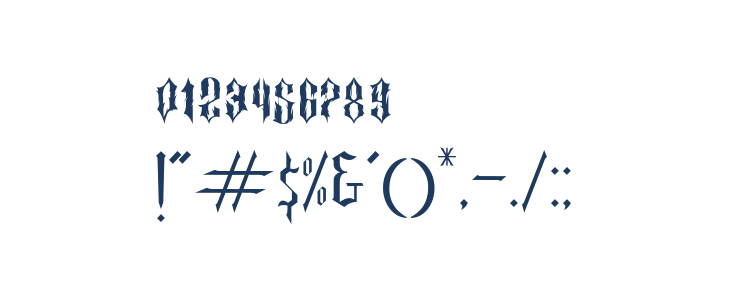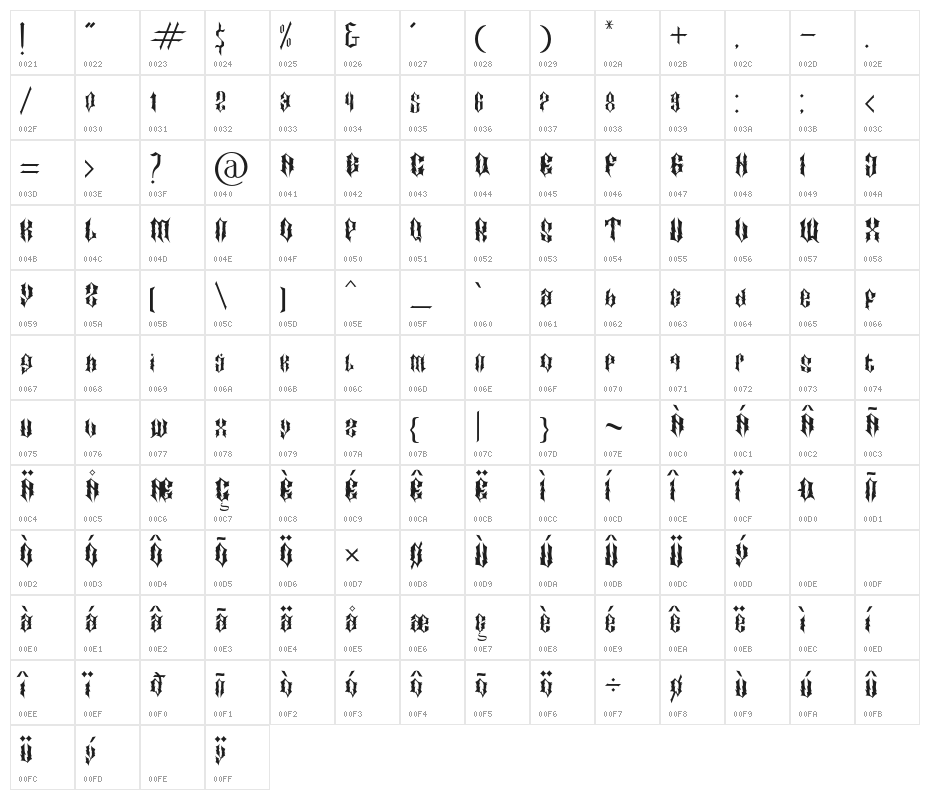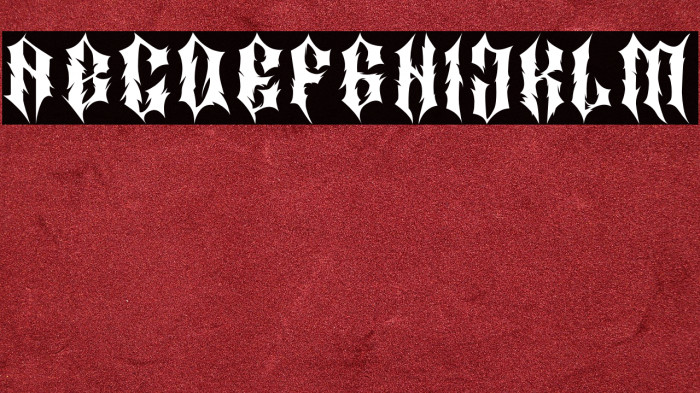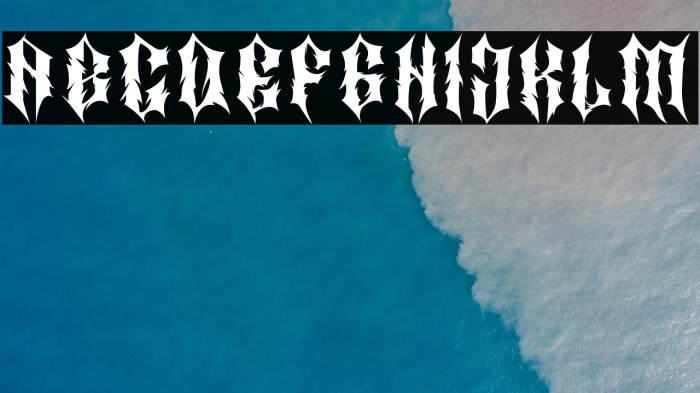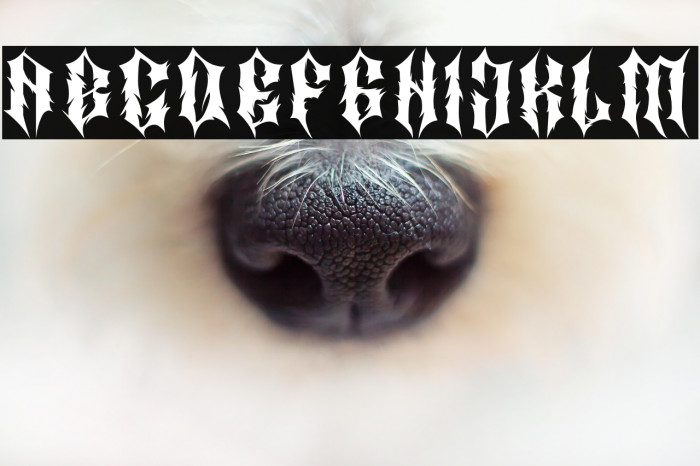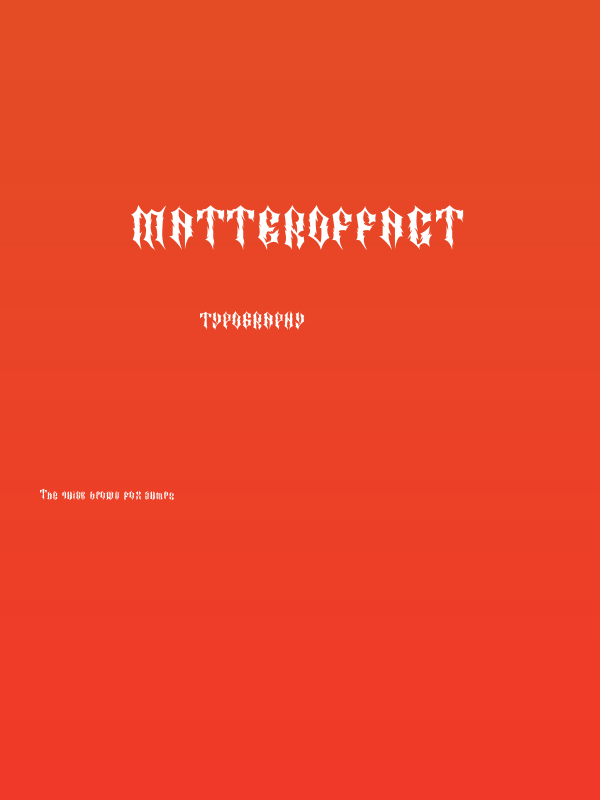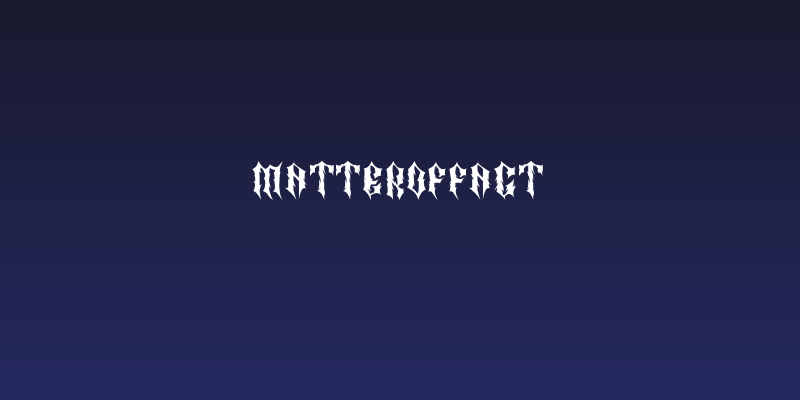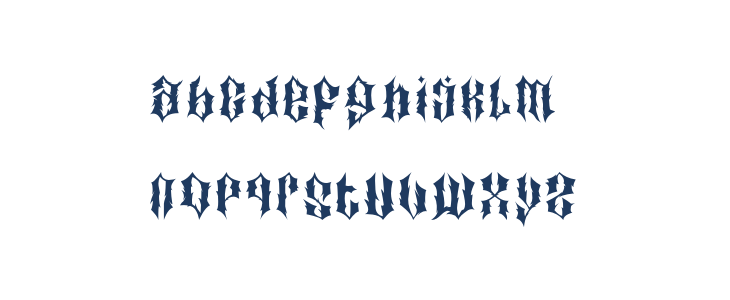
MatterOfFact Font
MatterOfFact Description
This font features a bold, angular design with sharp, pointed edges reminiscent of Gothic or medieval styles. The characters are highly stylized, with intricate details that give them a dramatic and intense appearance. The uppercase and lowercase letters maintain a consistent theme, with each character exhibiting a unique flair while adhering to the overall aesthetic. The numbers and special characters are equally ornate, ensuring a cohesive look across all glyphs. The font's striking appearance makes it suitable for projects that require a strong visual impact.
| Proposed Projects | Ideal for album covers, posters, tattoos, and branding that require a dramatic and intense visual style. |